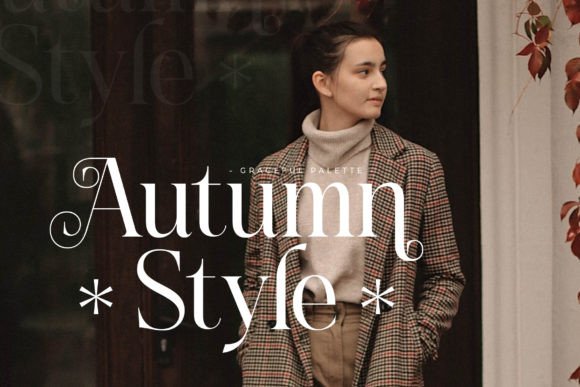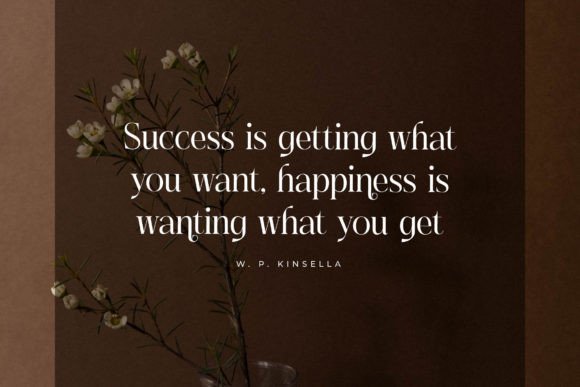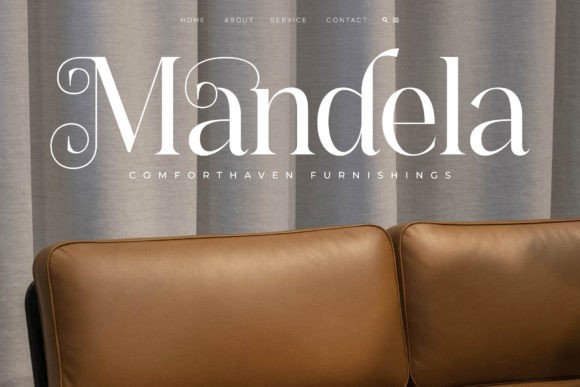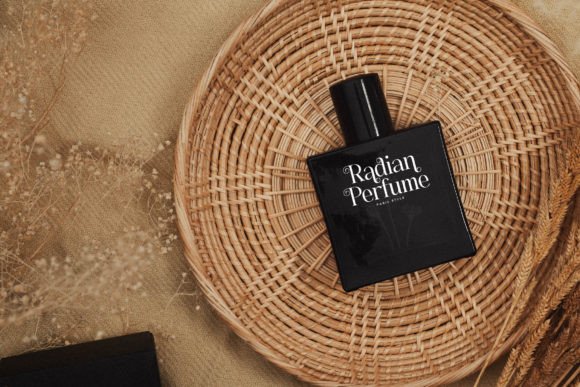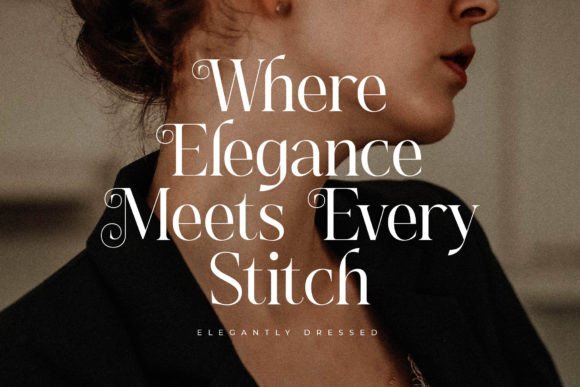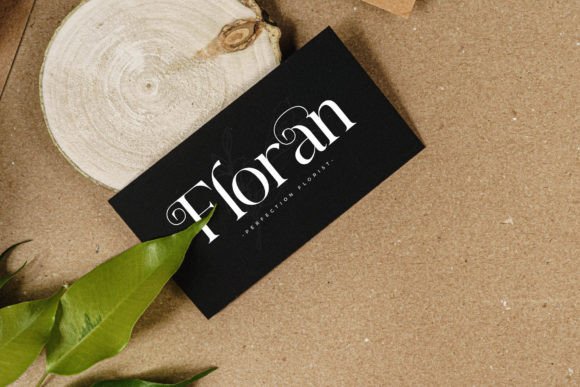
Discover the Elegance of Asgaber Font
Do you remember the moment when you stumbled upon the perfect font for your next design project? The one that spoke directly to your creative soul and elevated your work to new heights? For designers, this is often a moment of pure joy and excitement. It’s a feeling that we’ve all experienced at some point in our careers, and it’s what drives us to keep pushing the boundaries of creativity.
That’s exactly what the Asgaber Font is designed to do. This stunning serif typeface combines modern and classic elements to create a unique style that’s both elegant and luxurious. Whether you’re working on a high-end logo, a fashion brand, or a magazine, the Asgaber Font is the perfect choice to make your design stand out. With its PUA encoded feature, you’ll have access to a wide range of glyphs and ligatures, giving you endless possibilities to experiment and create something truly special.
Asgaber Font Key Features
- Unique Characteristics: The Asgaber Font features a unique blend of traditional and modern design elements, with intricate details and subtle nuances that set it apart from other fonts.
- Language Support: The font supports multiple languages, including English, Arabic, and other languages that use the Latin and Arabic scripts.
- Font Style: The Asgaber Font is available in regular, bold, italic, and bold-italic styles, providing users with flexibility and versatility in their design choices.
Asgaber Font Review
I’ve had the chance to work with the Asgaber font, and here’s my honest take on it.
- Unique Design: The Asgaber font has a distinctive, exotic feel to it that’s perfect for adding a touch of personality to your designs.
- Legibility: Despite its ornate nature, the font is surprisingly legible, making it suitable for body text and headings alike.
- Readability at Small Sizes: While the font is legible at larger sizes, it can become difficult to read at very small sizes, which may limit its use in certain applications.
- Lack of Extensive Character Set: The font’s character set is not as extensive as some other fonts, which may make it less suitable for languages that require a wide range of characters.
Overall, I think the Asgaber font is a great choice for designers who want to add a unique touch to their work. While it may have some limitations, its unique design and legibility make it a valuable addition to any font collection.
Asgaber Font Practical Application Guide
Tips for Getting the Most Out of Asgaber Font
For best results, use Asgaber Font for headings and titles. It’s a bold and elegant font that works well for creating a strong visual impact.
Experiment with different font sizes and styles to create a visually appealing design.
Asgaber Font is perfect for:
- Creating a luxurious and elegant brand identity.
- Designing a high-end product or service brochure.
- Creating a visually striking social media post or advertisement.
Alternatives to Asgaber Font
Open Sans is a modern sans-serif font that is highly legible and versatile. It’s ideal for use in digital products, such as websites, apps, and e-books. Open Sans is a great choice for designers who want a clean and professional look.
Compared to Asgaber Font, Open Sans has a more minimalist and neutral design, making it suitable for a wide range of applications. While Asgaber Font has a more unique and exotic feel, Open Sans is a safer choice for most design projects.
Lato is a sans-serif font that is highly customizable and adaptable to different contexts. It’s a great choice for designers who want a font that can work well in both print and digital formats. Lato has a strong, modern feel that is perfect for use in logos, branding, and advertising.